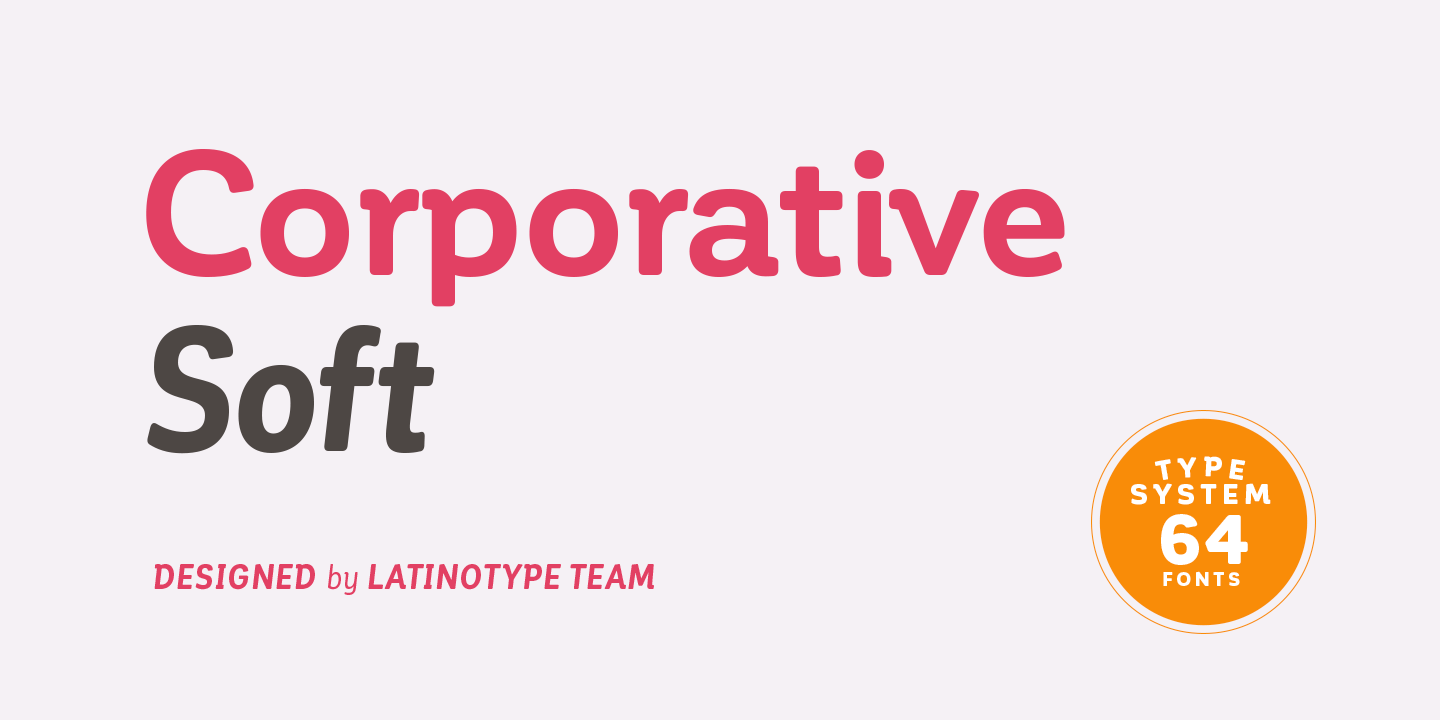
Corporative Soft Font is ideal for modern business communications, user-friendly corporate websites, approachable brand identities, customer service materials, healthcare organizations, educational institutions, tech startups, and human resources documentation. This gentle sans-serif typeface brings warmth, accessibility, and professional friendliness to any project requiring trustworthy communication with a human touch.
What makes Corporative Soft Font exciting is its perfect balance of corporate professionalism with approachable warmth that creates instant trust and comfort. The font features softly rounded letterforms with gentle curves, optimized spacing, and humanized details that make formal business communication feel more personal and welcoming. Its friendly character maintains professional credibility while breaking down barriers between organizations and their audiences, making it ideal for companies that prioritize customer relationships and employee engagement.
The Corporative Soft Font family typically includes comprehensive weight variations from light to bold, with matching italic styles and extended character sets. The complete family features multilingual support, professional typography options including small caps, tabular figures, and accessibility-focused design elements that ensure optimal readability for diverse audiences.
Whether you're developing customer-focused brand communications or creating employee-friendly documentation, Corporative Soft Font Free Download delivers exceptional versatility and emotional intelligence. This typeface excels in both digital interfaces and printed materials, maintaining its welcoming character across all applications while ensuring maximum readability. Its approachable aesthetic makes it particularly effective for service-oriented businesses, healthcare providers, and organizations that want to communicate competence without intimidation. The font's soft presence helps build meaningful connections while maintaining the professional standards essential for business success.